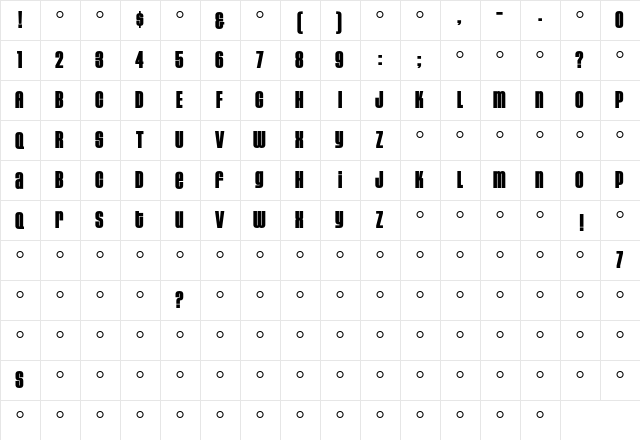
HouseGothic Black
Design Context for HouseGothic Typeface
HouseGothic takes a clean, functional approach — its unadorned letterforms prioritise legibility and work reliably across screen and print environments.
Font Pairing: Works well alongside a characterful serif or display font that can carry the expressive load while HouseGothic handles the functional copy.
Pro Tip: Use HouseGothic for UI labels, navigation, and short-form body copy where clean legibility is the priority.